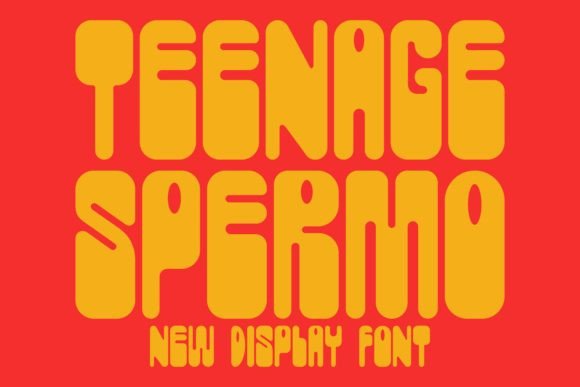
Introducing Teenage Spermo Font, the ultimate choice for creative writing enthusiasts! This unique display font, created by the talented designers at Teenage Foundry, will add a touch of edginess to your projects, making them truly unforgettable.
With its clean and neat curves, Teenage Spermo exudes confidence and a youthful vibe, making it the perfect choice for those looking to make a bold statement. The strong lines and thick strokes give this font an impactful look, while the smooth lines and curves add a softer touch, making it approachable and versatile.
Whether you're designing eye-catching posters, attention-grabbing flyers, or captivating logos, Teenage Spermo will effortlessly stand out from the crowd. Its distinct style will instantly grab the viewer's attention, leaving a lasting impression and conveying the essence of your message.
But that's not all - we've gone the extra mile to enhance your creativity! With the Teenage Spermo Font, you'll receive four exclusive illustrations that will inspire you and add an extra flair to your designs. These illustrations will spark your imagination and help you create visually stunning and captivating content.
Imagine the possibilities with Teenage Spermo Font! Let your creativity soar as you explore the endless options this font offers. Whether you're a professional designer or a creative hobbyist, this font will elevate your work to new heights.
Stand out from the competition and make a statement with Teenage Spermo Font. Its unique and captivating style will draw attention, leaving a lasting impression on your audience. Don't settle for ordinary fonts when you can have the best font for creative writing.
Upgrade your designs, captivate your audience, and let your creativity shine with Teenage Spermo Font - the font that brings your imagination to life.